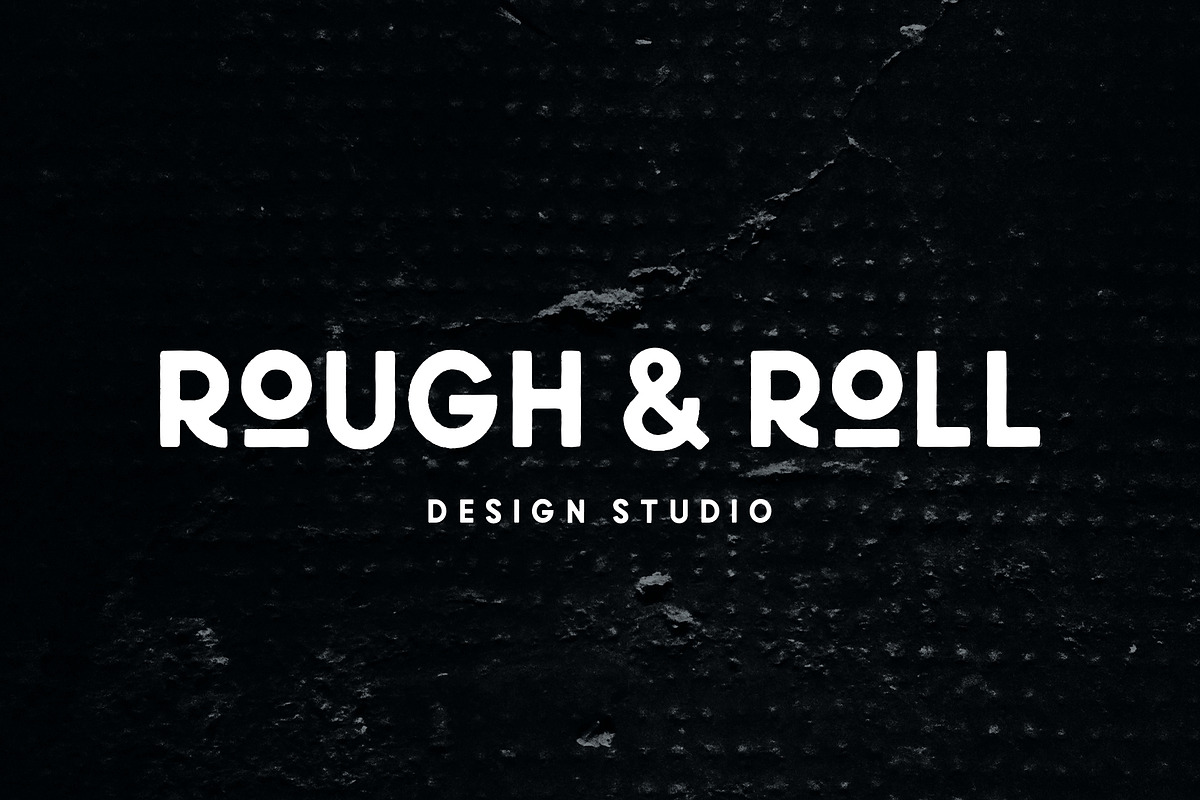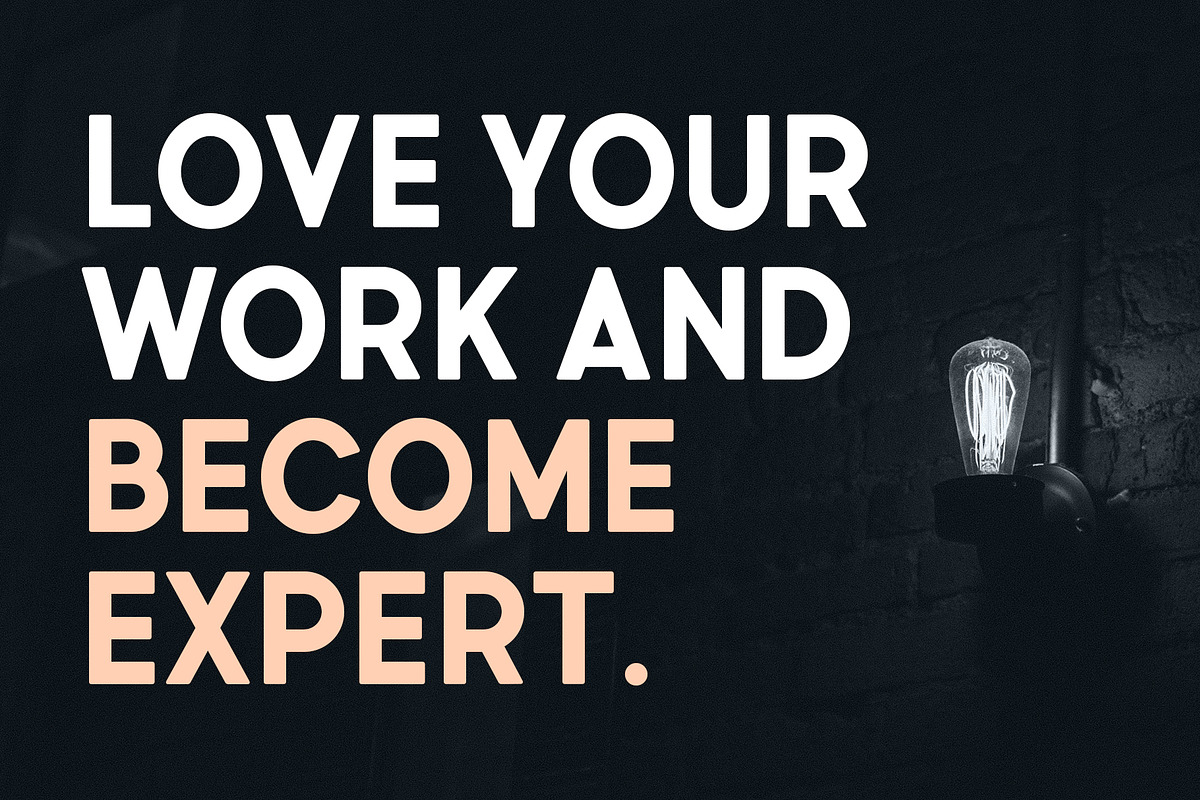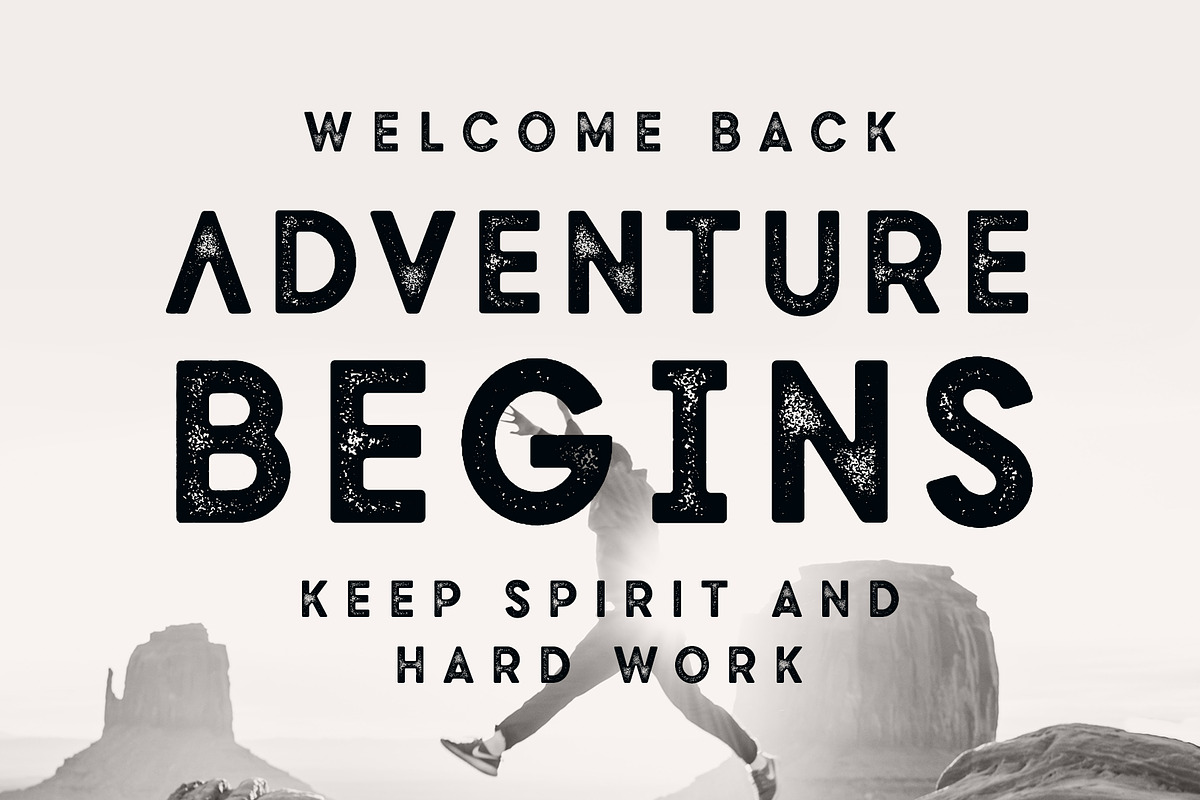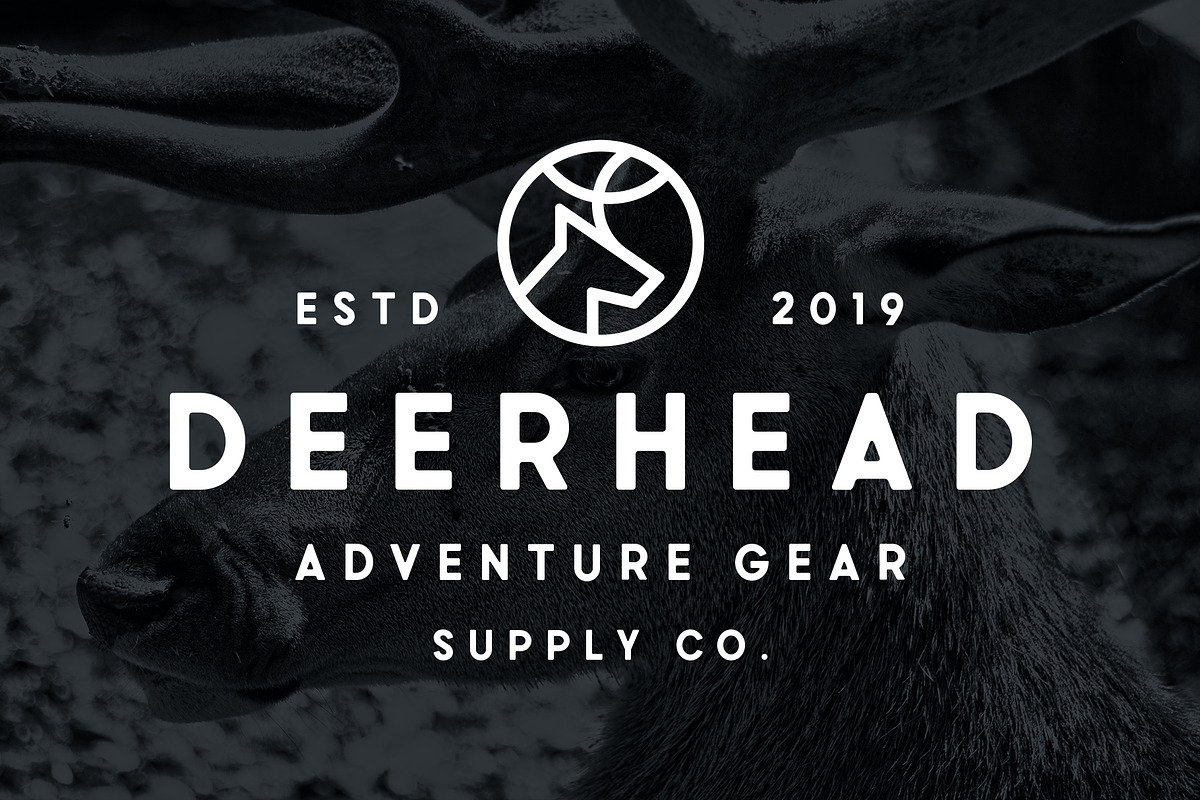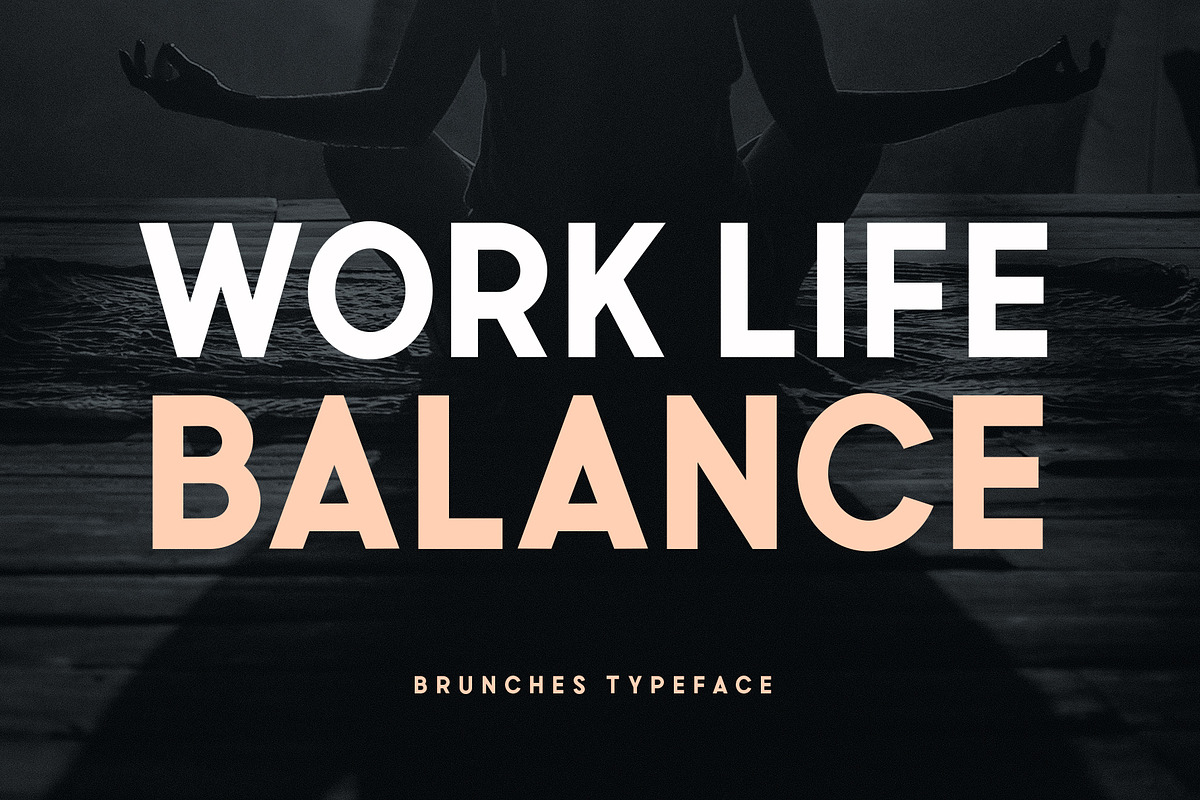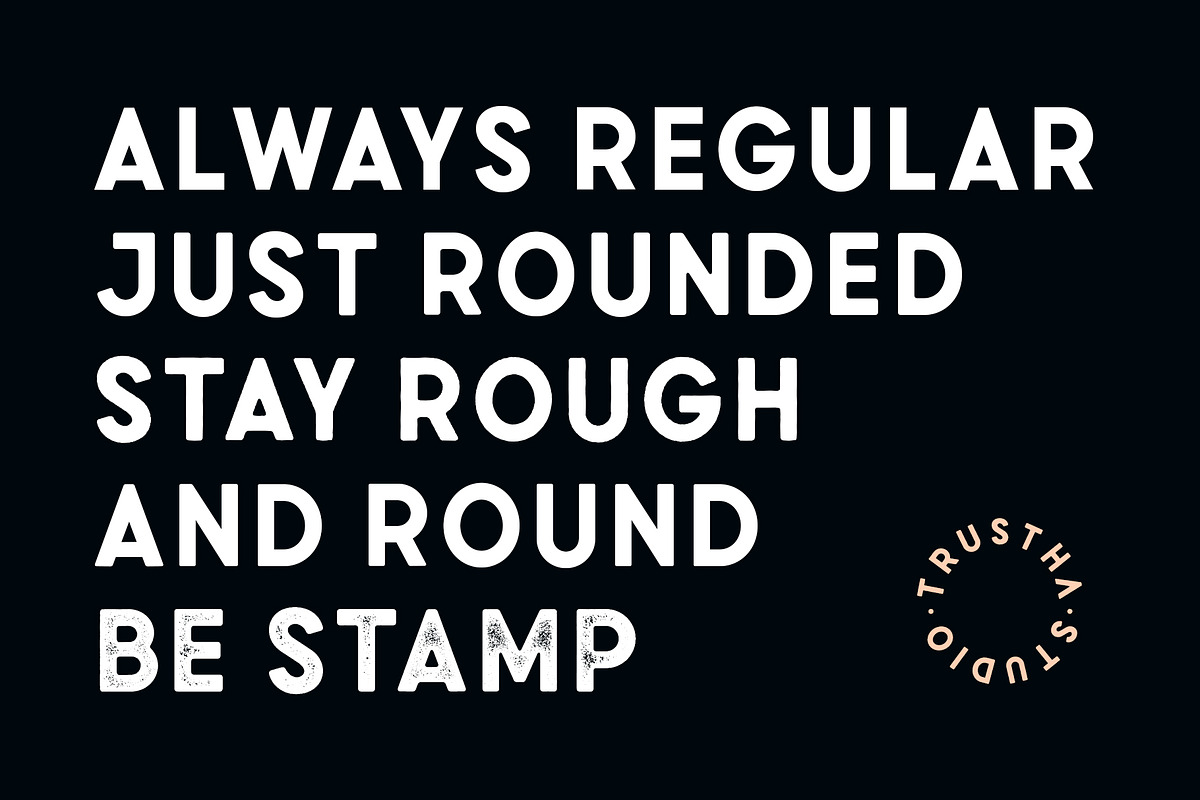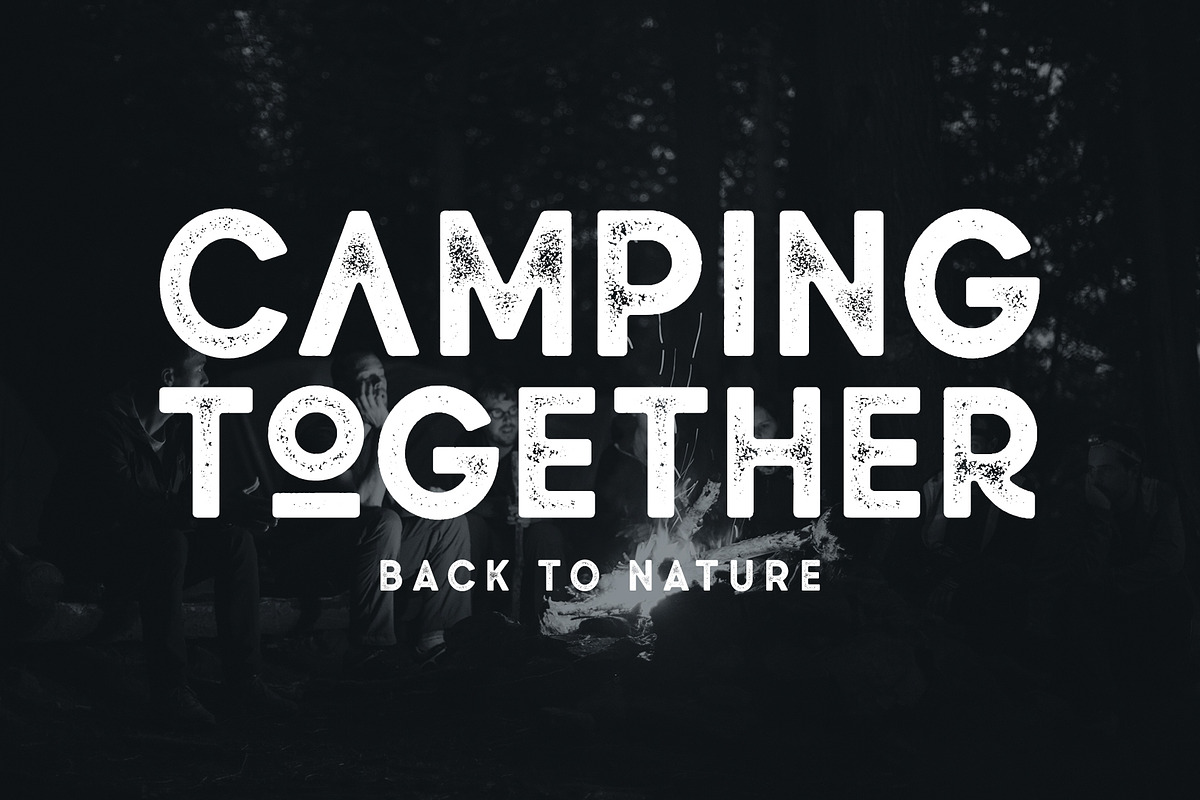
Brunches - 10 Font Includes
Brunches is a sans serif font with several different styles. Basically this font is designed with geometric principles. There are several choices of styles to choose from as needed. Suitable for all any creative project. Will make each project easier and more colorful because it has several different styles.
Uppercase & lowercase
Number & punctuation symbols
International characters (Multilingual)